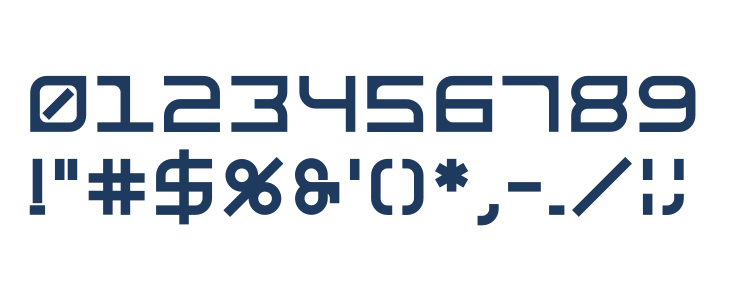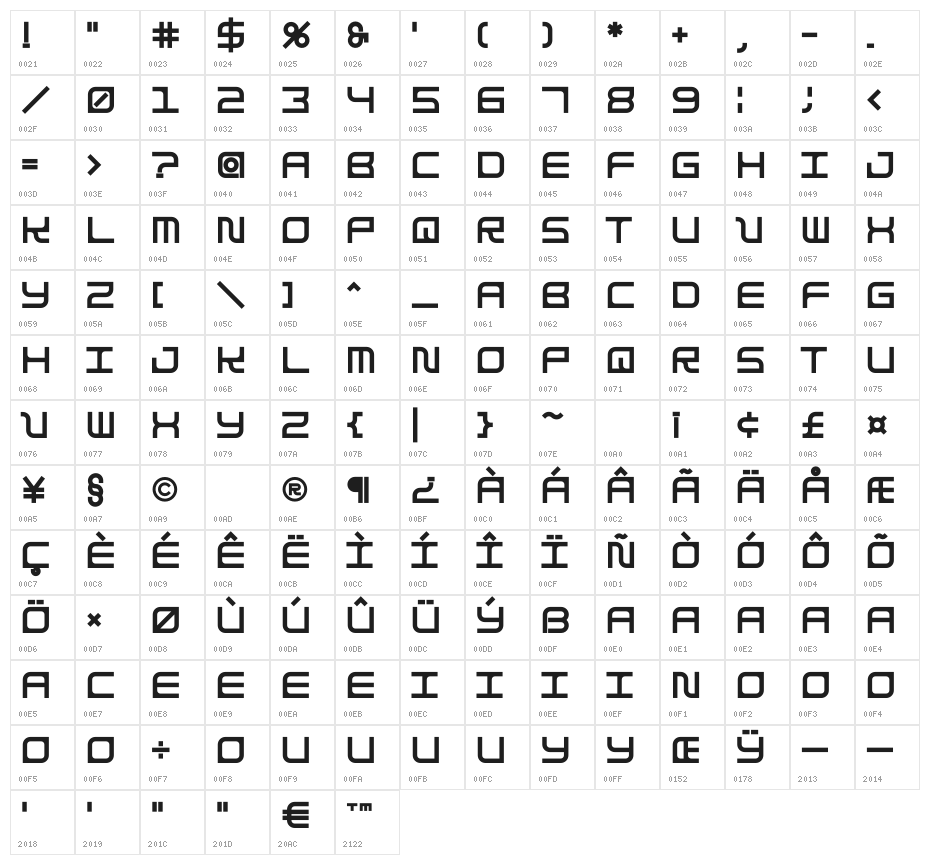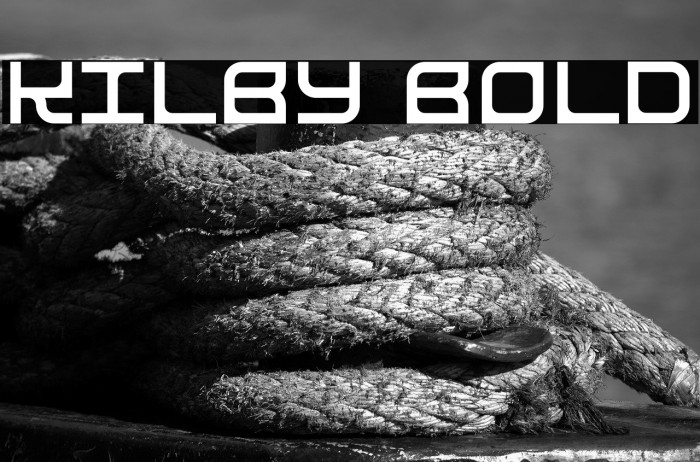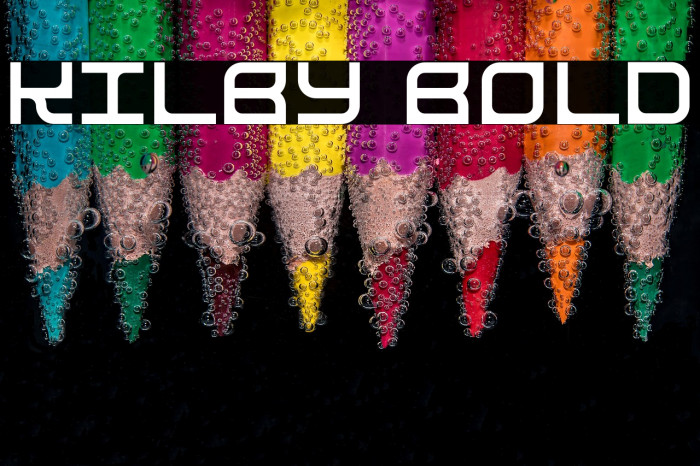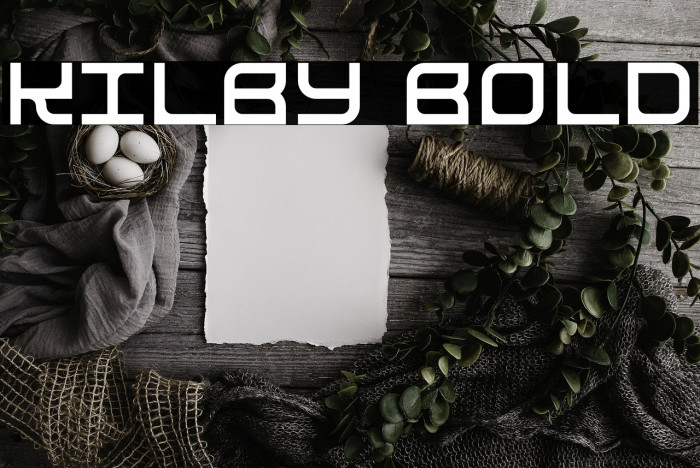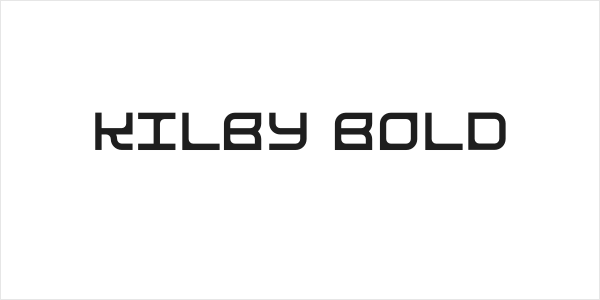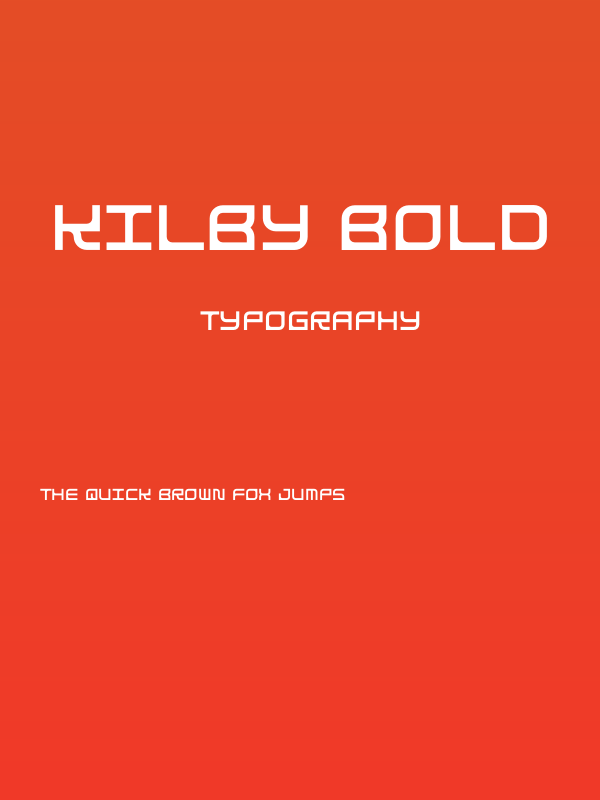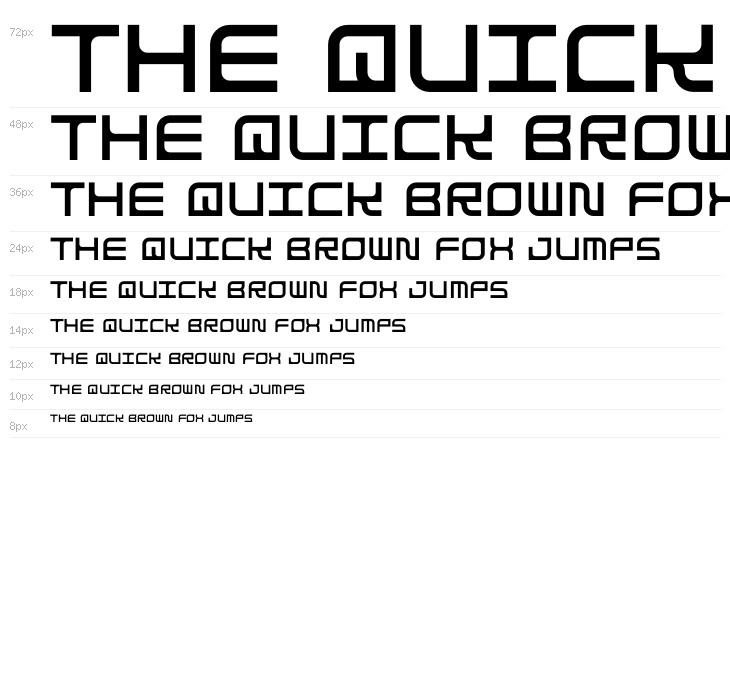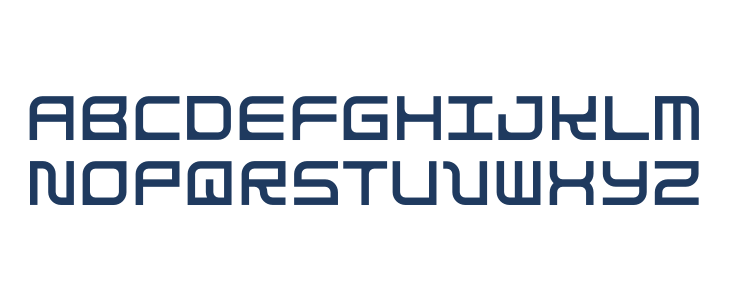
Kilby Bold Font
Kilby Bold Description
This font features a geometric and modern design with a distinct digital aesthetic. The characters are constructed with uniform stroke widths, giving it a clean and structured appearance. The uppercase and lowercase letters maintain a consistent height, contributing to a cohesive look. The numerals and special characters are designed to match the overall style, with a focus on readability and simplicity. The font's angular shapes and straight lines make it suitable for contemporary and tech-oriented designs.
| Use Case | Headlines, Logos, Digital interfaces |
| Proposed Projects | Ideal for tech branding, digital interfaces, modern posters, and futuristic designs. |